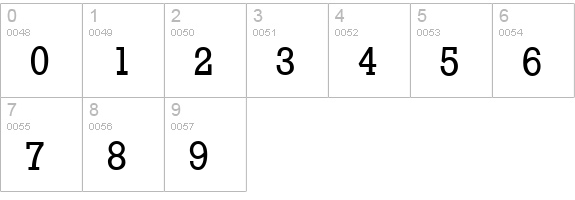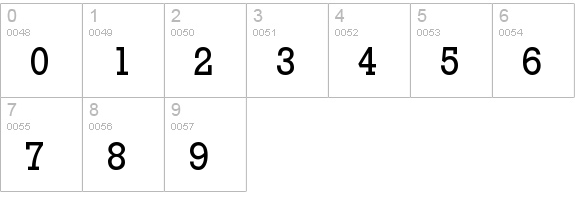
Rambault-Regular is the standard, neutral variant in the Rambault typeface family \xE2\x80\x94 well suited to general body text, paragraphs, and standard typographic work.
Rambault-Regular is a versatile and elegant font that exudes sophistication and charm. With its clean lines and classic proportions, this typeface is perfect for a wide range of design projects, from branding to editorial layouts. The timeless appeal of Rambault-Regular makes it a go-to choice for designers looking to add a touch of refinement to their work. One of the best things about Rambault-Regular is that it is completely free to download. You can easily access this beautiful font at FontsMarket.com, where you can explore its full potential and unleash your creativity without any cost. Whether you're working on a personal project or a commercial design, Rambault-Regular offers the perfect balance of style and functionality. Elevate your designs with the timeless beauty of Rambault-Regular today.